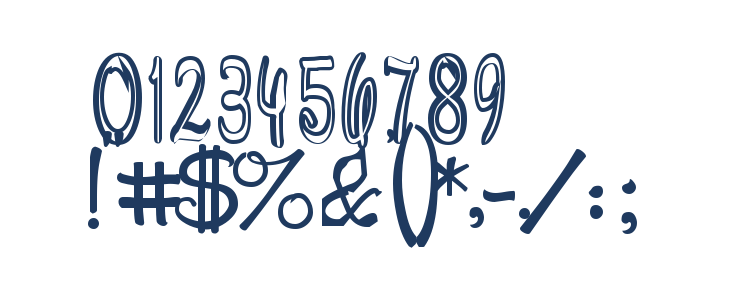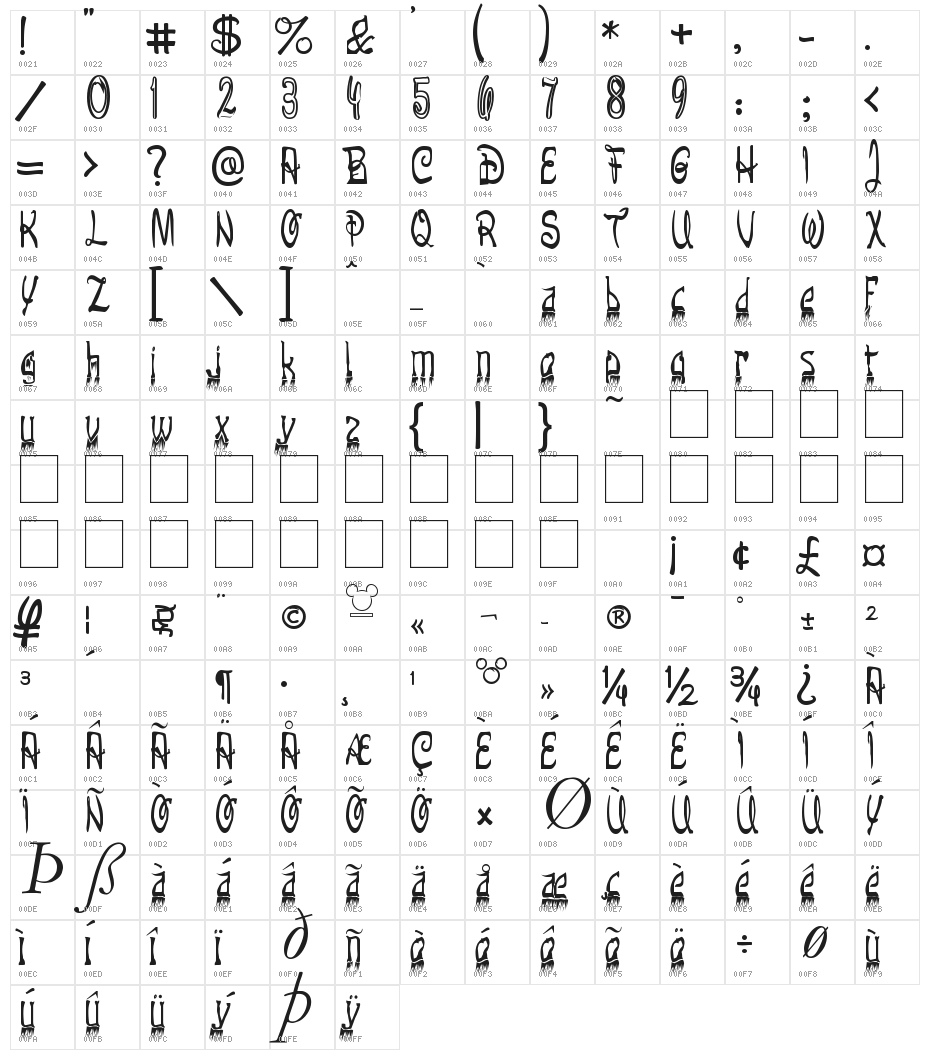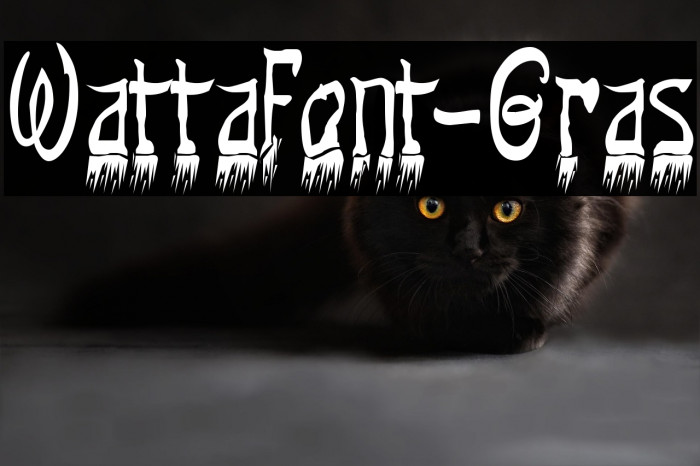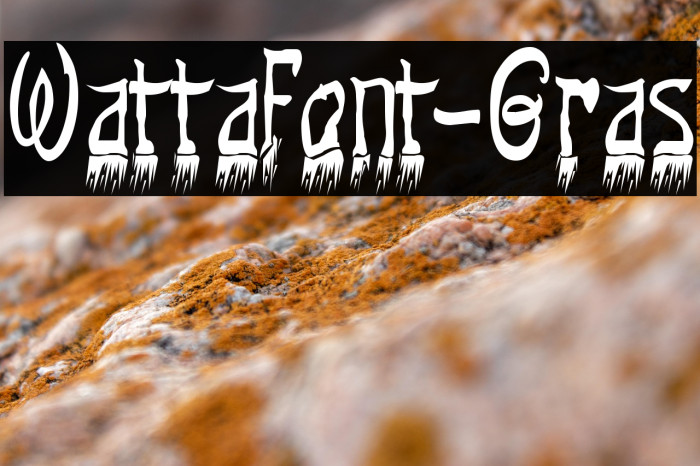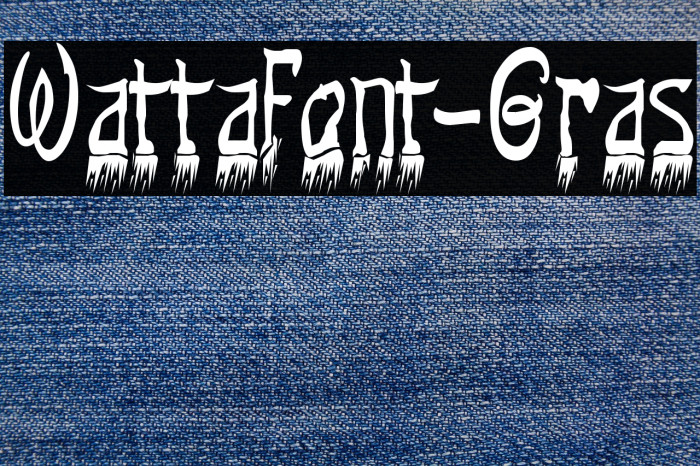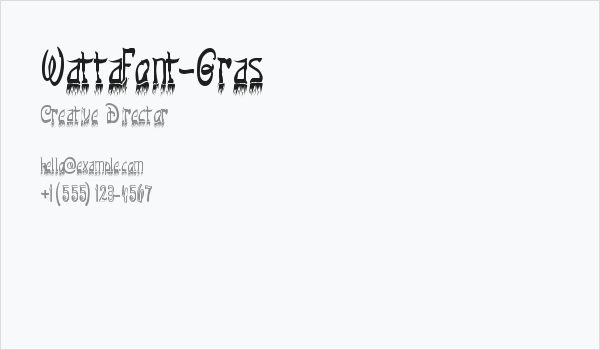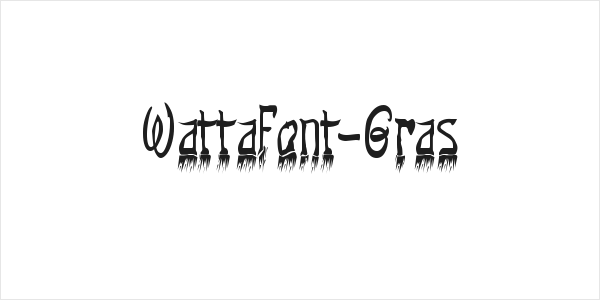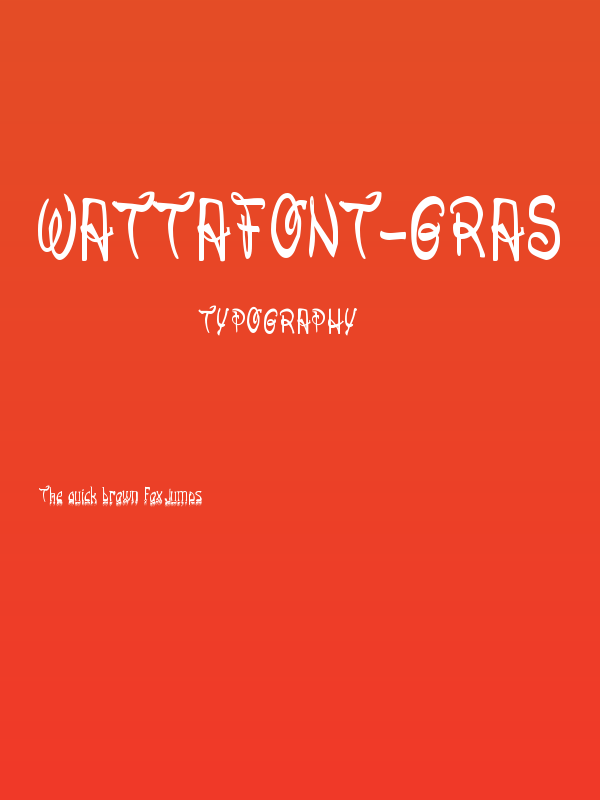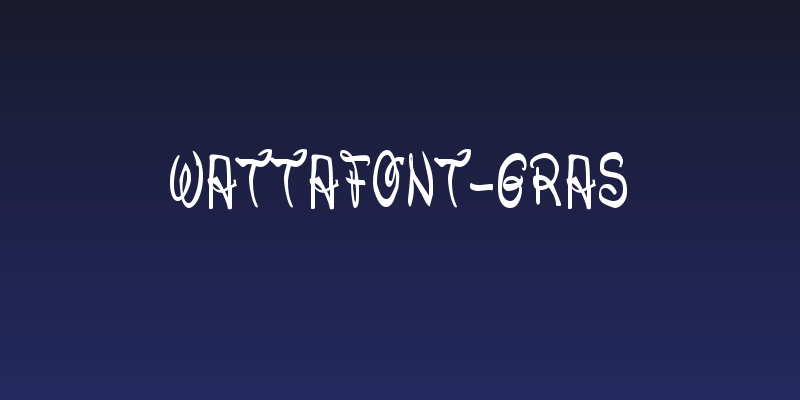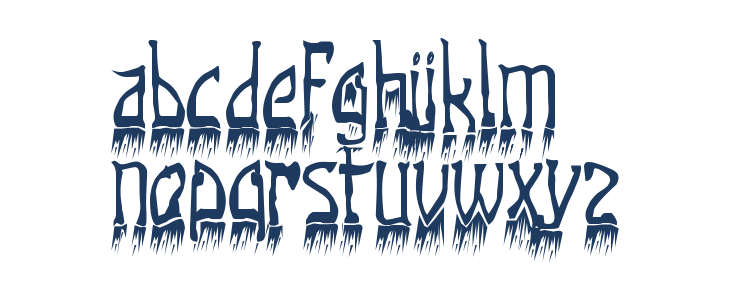
Wattafont-Gras Font
Wattafont-Gras Description
This font features a bold and dramatic style with a unique, artistic flair. The characters have a hand-drawn appearance, with uneven strokes and playful curves that give it a whimsical and slightly chaotic feel. The uppercase letters are tall and narrow, while the lowercase letters have a more varied height, adding to the dynamic look. The numbers and special characters maintain the same artistic style, ensuring consistency throughout. This font's distinctive design makes it stand out, perfect for creative projects that require a touch of individuality and flair.